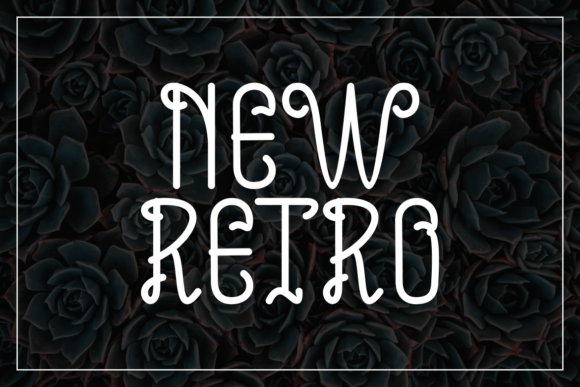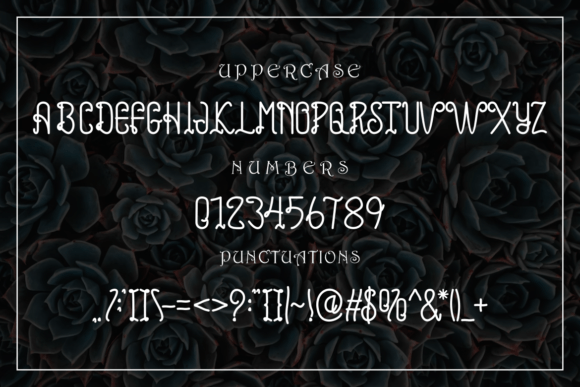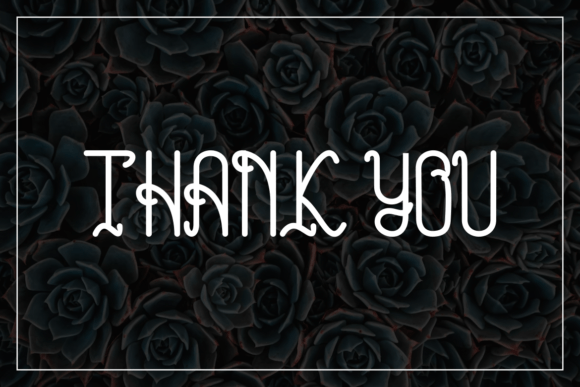
Introduction to Retroe Font
Retroe is a fun and unique display font.
Whimsical and a bit quirky, this font will brighten up each of your designs .
Retroe Font offers exceptional quality and versatility, making it a valuable addition to your design toolkit. Whether you’re creating for personal projects or commercial use, Retroe Font delivers professional results.